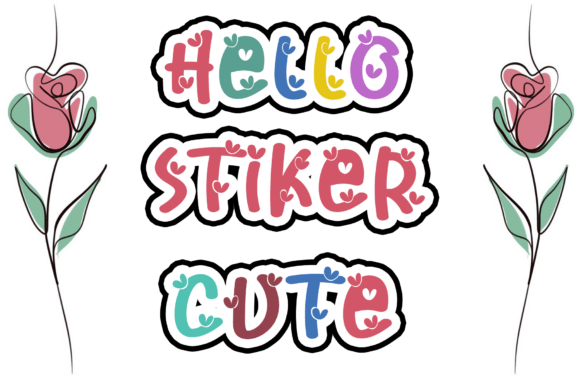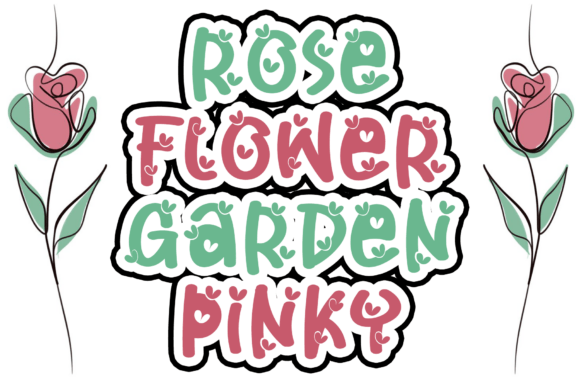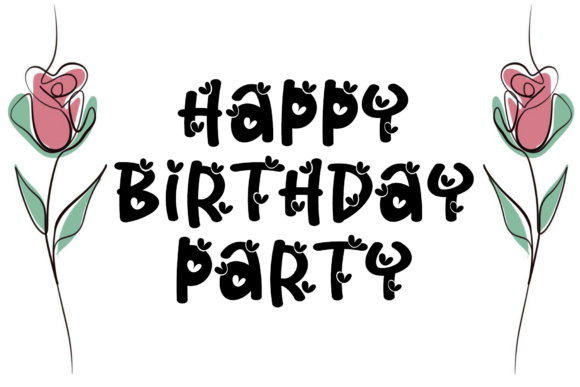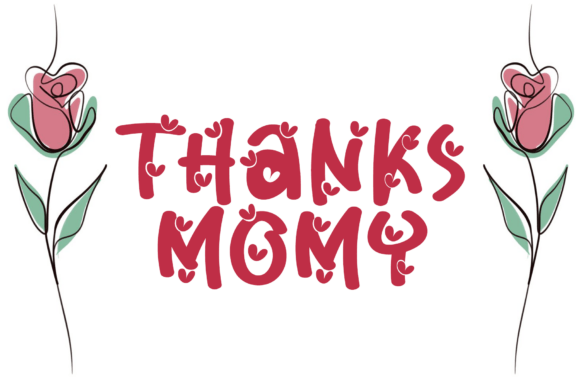
Introduction to Home Honey Font
Home Honey is a sweet and soulful display typeface that brings a playful, handcrafted warmth to every word.
Characterized by its chunky, rounded letterforms and charming heart-shaped counters, this font exudes a sense of love and comfort Its thick, soft strokes make it an exceptional choice for home decor branding, children’s apparel, personalized gifts, and “sweet” product packaging like honey, pastries, or candles.
Key Features of Home Honey Font